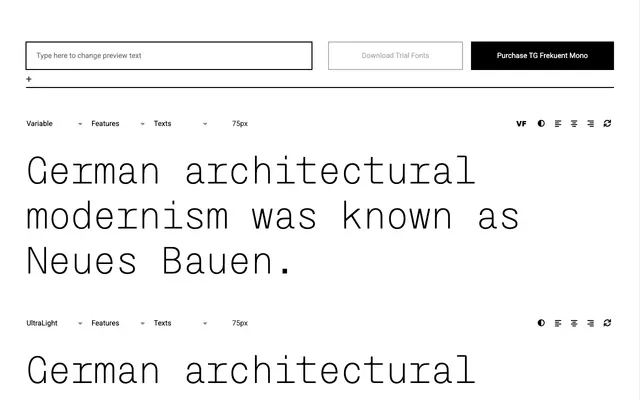
TG Frekuent Mono
Tegamitype · Iqbal Firdaus · 2020
A geometric monospaced typeface by Iqbal Firdaus spanning six weights plus a variable font, with script-inspired stylistic alternates adding a quirky counterpoint to its structured forms.
Built on geometric principles with fixed-width spacing, TG Frekuent Mono runs from UltraLight to ExtraBold with a variable font covering the full range. Stylistic alternates drawn from script letterforms introduce informal touches without breaking the overall rigidity of the design. The family is positioned for both body text and display use, where the tension between its structured geometry and the alternate characters provides visual interest.
Described explicitly as a geometric sans serif with a monospaced style; the foundry classifies it under Sans Serif, but the monospaced construction is the defining characteristic.